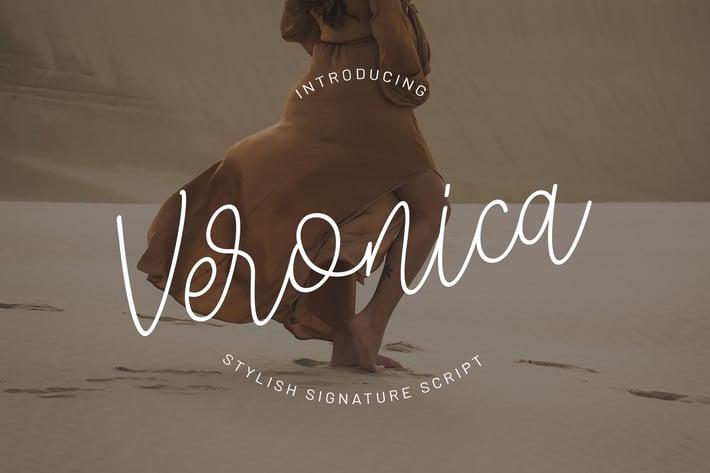
Veronica - Signature Script Font
We are happy to introduce our new font "Veronica", is a signature script font, this font looks classy, luxury, elegant,
romantic, and awesome.
Veronica script Font is the best choice for your professional design projects, including : logo, poster design, t-shirt, headline,
flyer, cd cover album, quotes, business card, branding, magazines, social media, advertisements, product designs, or
something that need signature, beauty looks.